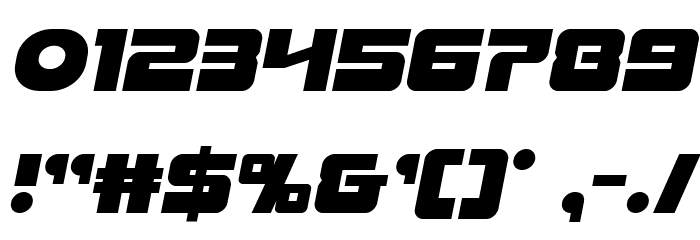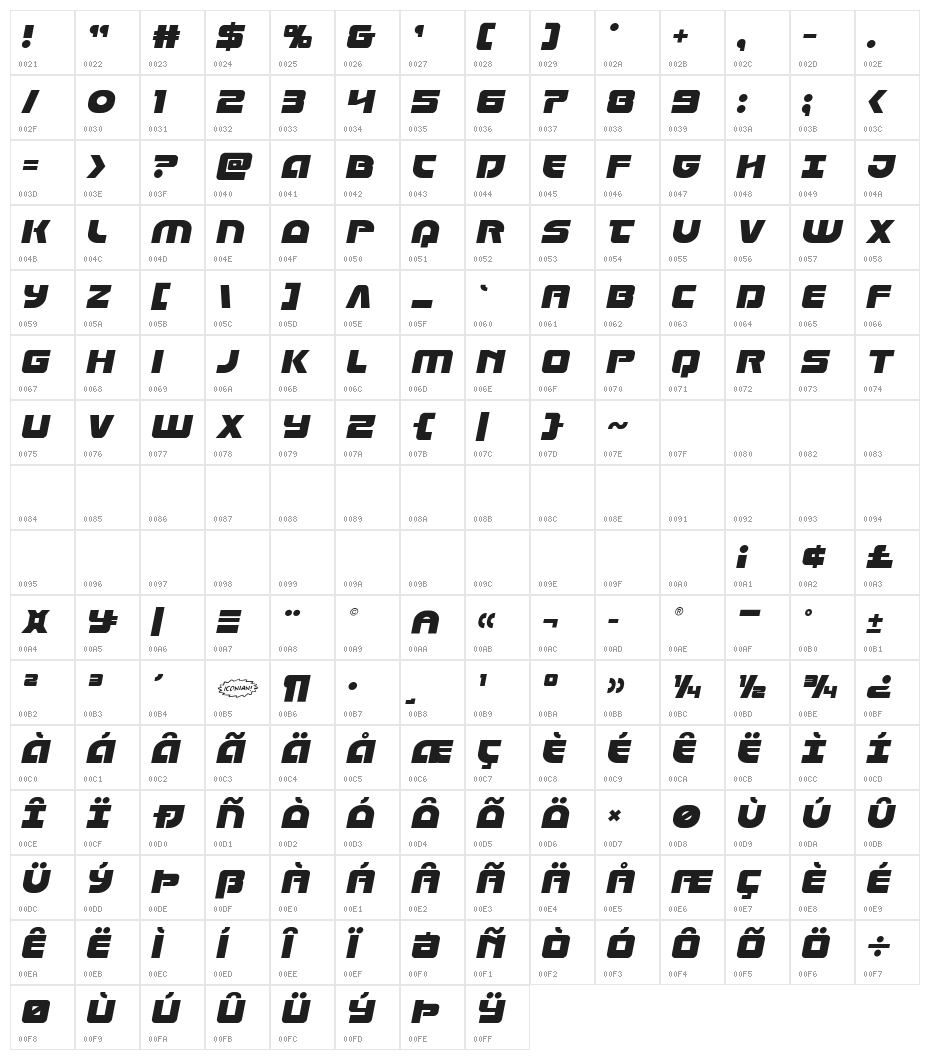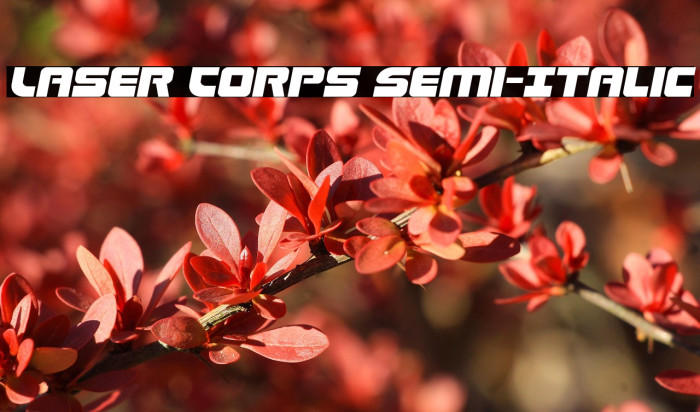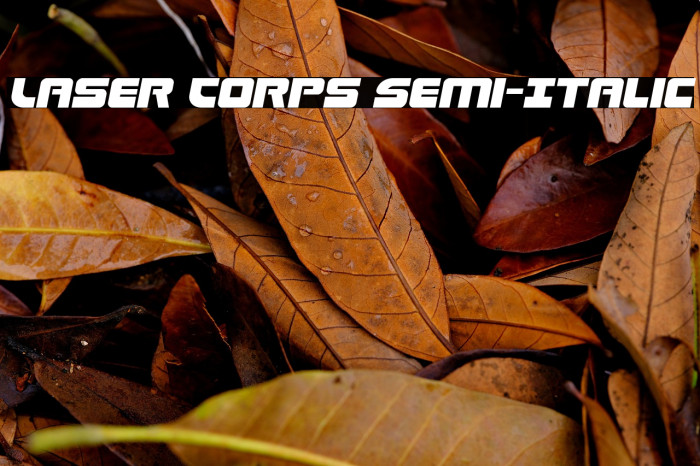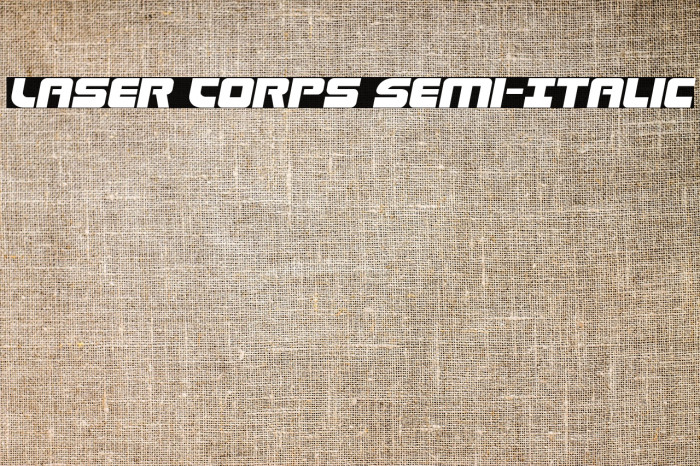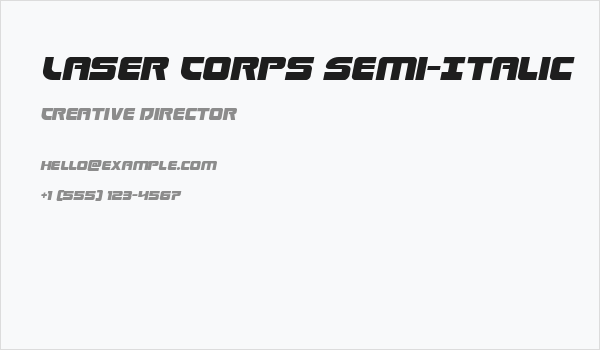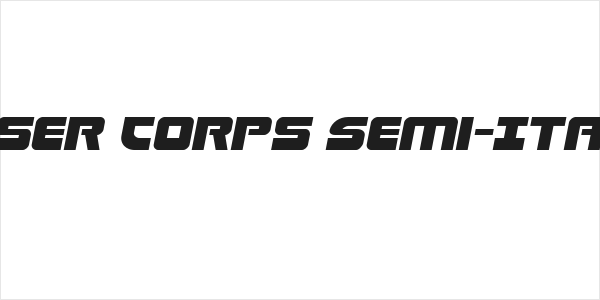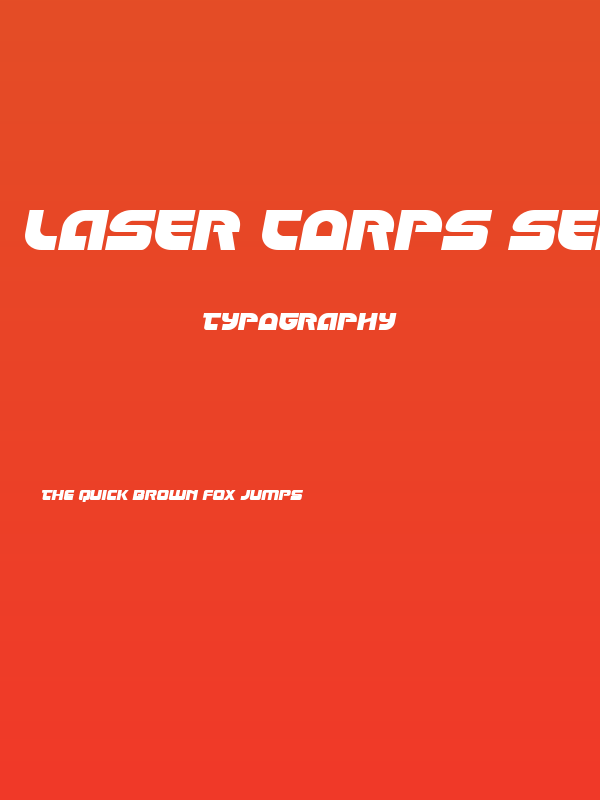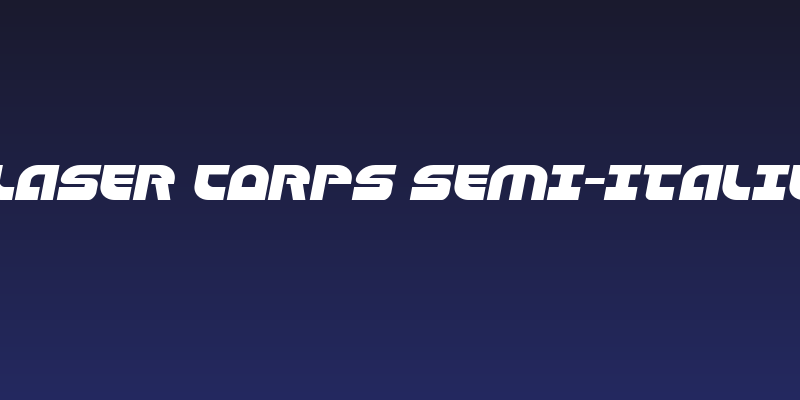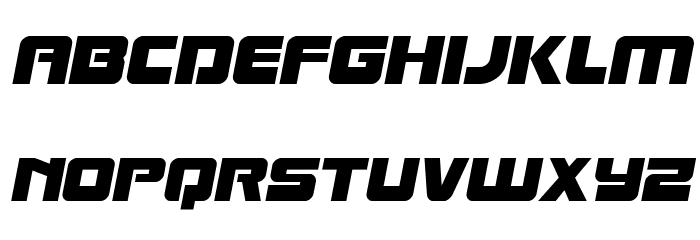
Laser Corps Semi-Italic Font
Laser Corps Semi-Italic Description
This font features a futuristic and dynamic style with a semi-italic slant, giving it a sense of motion and energy. The characters are bold and angular, with a consistent stroke width that emphasizes strength and modernity. The uppercase letters are particularly striking, with sharp edges and a slightly condensed form that enhances readability while maintaining a unique aesthetic. The numerals and special characters follow the same design principles, ensuring a cohesive look across all text elements. This font is ideal for projects that require a bold and modern appearance, such as technology branding, sports team logos, or sci-fi themed designs.
| Proposed Projects | Ideal for technology branding, sports team logos, sci-fi themed designs, and dynamic posters. |